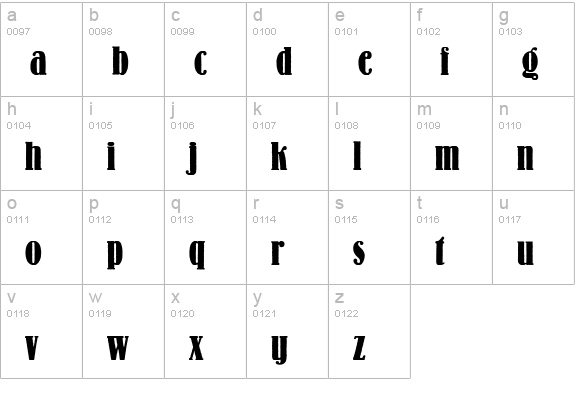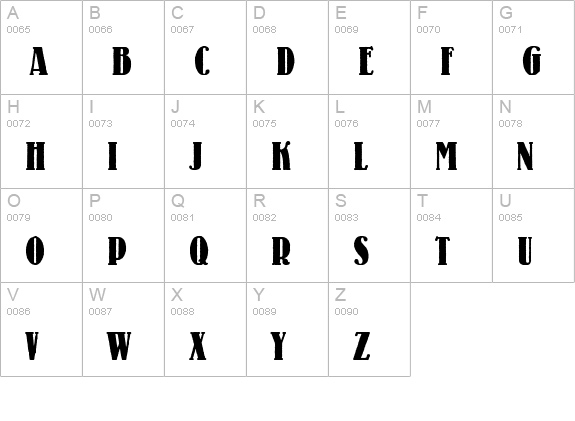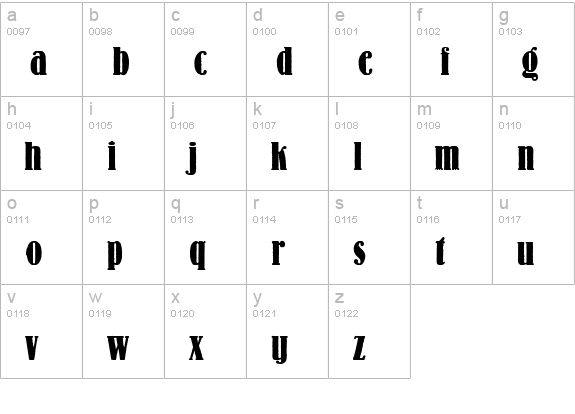
Lo-Type (R) Condensed Medium Font Details
Lo-Type (R) Condensed Medium is a balanced, medium-weight, condensed-width variant in the Lo typeface family \xE2\x80\x94 well suited to sub-headlines, navigation, and balanced editorial work.
Lo-Type (R) Condensed Medium font is a sleek and modern typeface that exudes sophistication and style. With its condensed design, it is perfect for creating eye-catching headlines, logos, and branding materials. The bold and strong letterforms make a powerful statement while maintaining readability. This font is versatile and can be used across a variety of design projects, from posters to packaging to websites. Its clean lines and contemporary look will add a touch of elegance to any project. Best of all, Lo-Type (R) Condensed Medium font is available for free download at FontsMarket.com. Whether you're a designer looking for a new typeface to add to your collection or just someone who appreciates quality fonts, this is a must-have addition to your toolkit. Download it today and start using this stylish font in your projects!